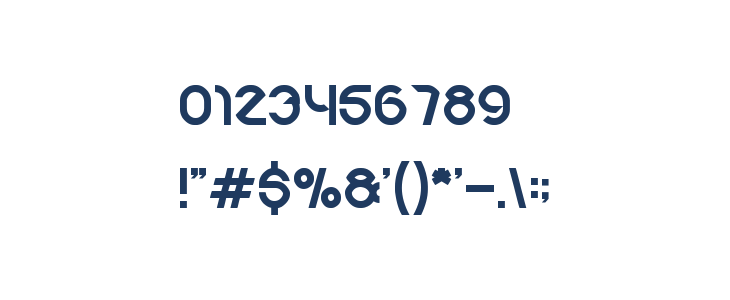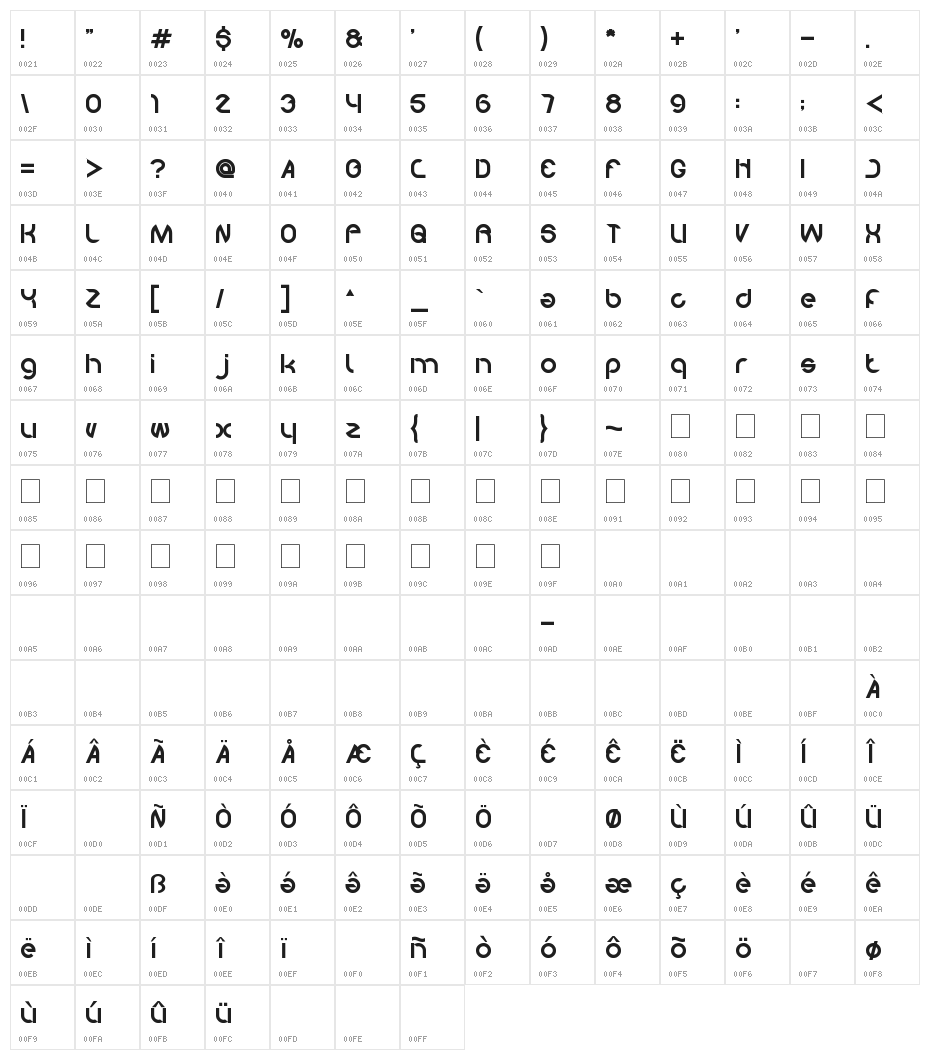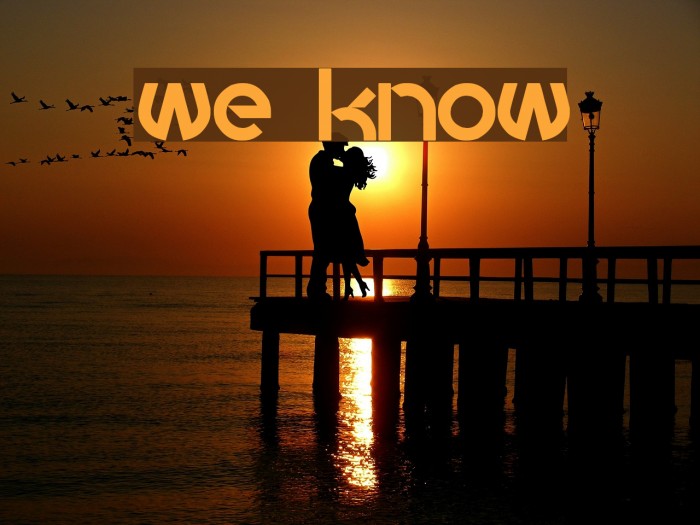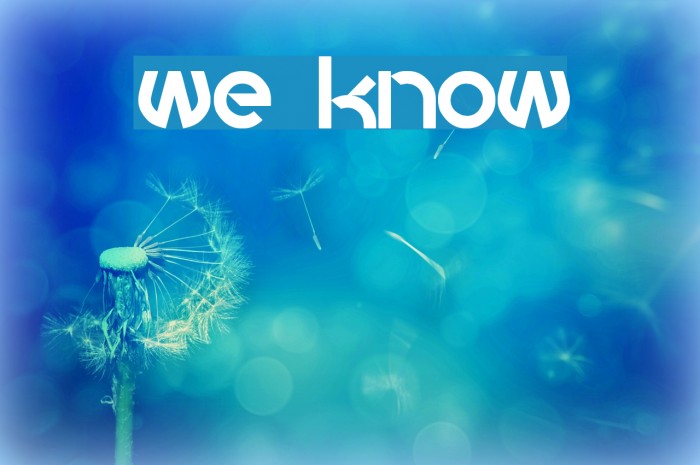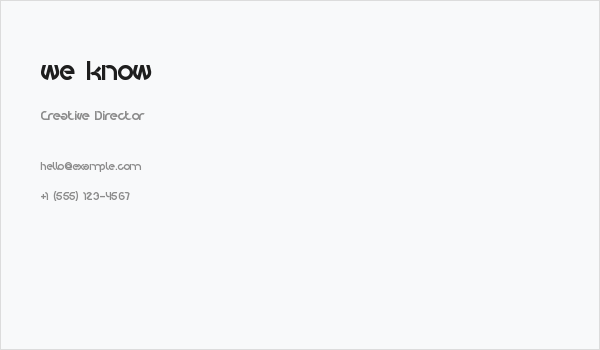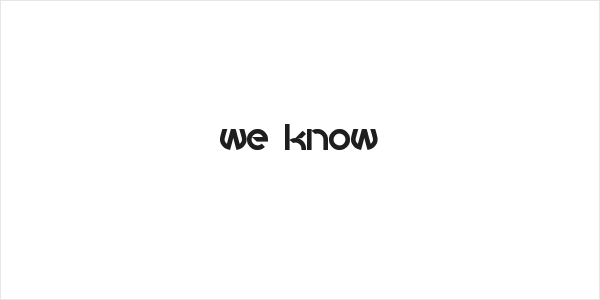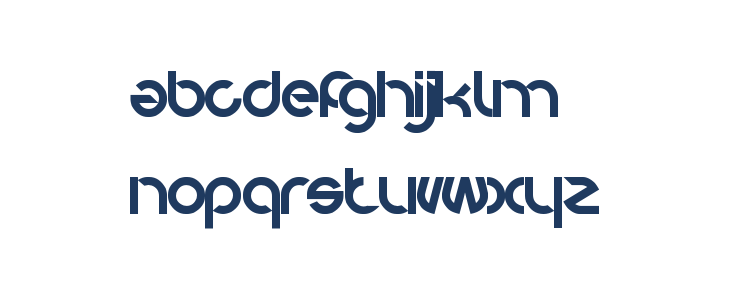
we know Font
we know Description
This font features a bold and modern design with geometric elements. The characters are constructed with a combination of straight lines and curves, creating a futuristic and dynamic appearance. The uppercase letters have a strong presence, while the lowercase letters maintain a consistent style with rounded edges. The numbers and special characters follow the same design principles, ensuring uniformity across the font. The overall look is sleek and contemporary, making it suitable for projects that require a modern and cutting-edge aesthetic.
| Use Case | Logos, Headlines, Posters |
| Proposed Projects | Ideal for technology branding, futuristic posters, and modern web design. |